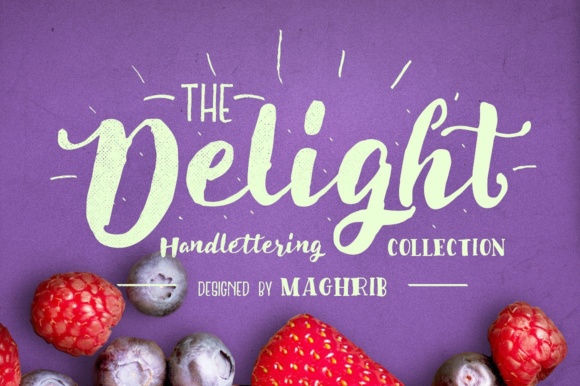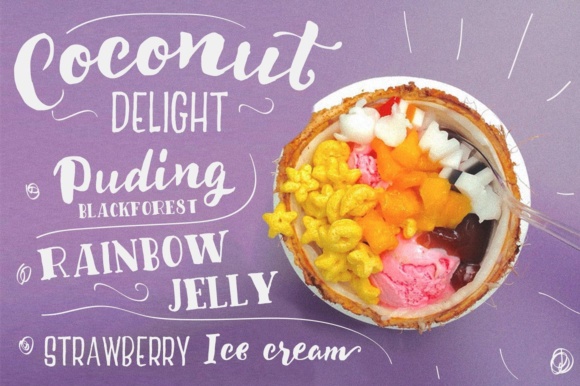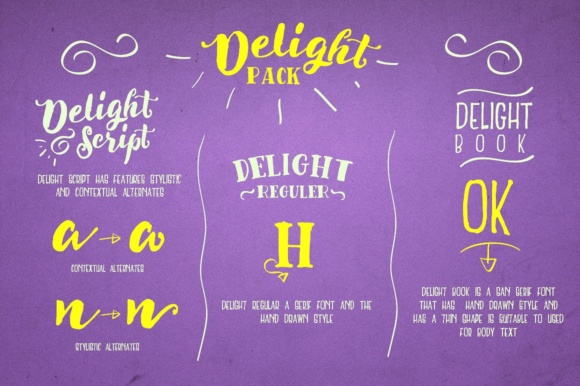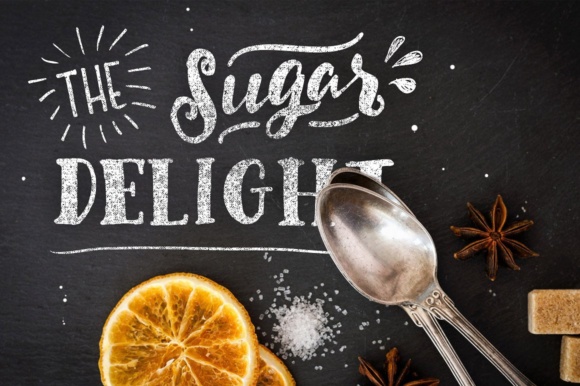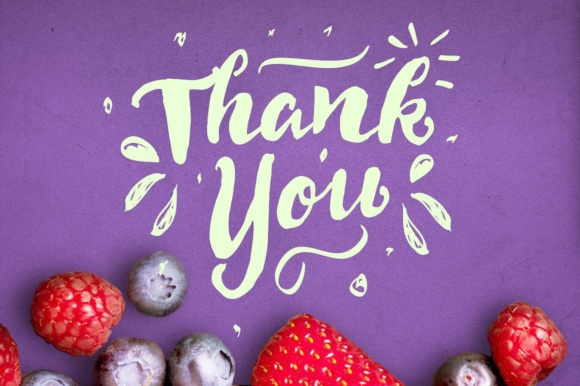
Delight Font
About Delight Font
The Delight is a lovely hand lettering family. It comes in three different versions: regular, bold and book. With this set and a little bit of love, it is possible to create a the perfect design.
Delight is optimized to feel not just like a font but like true handwriting.